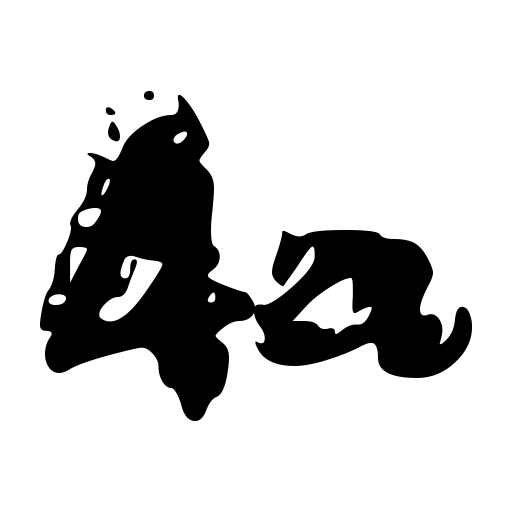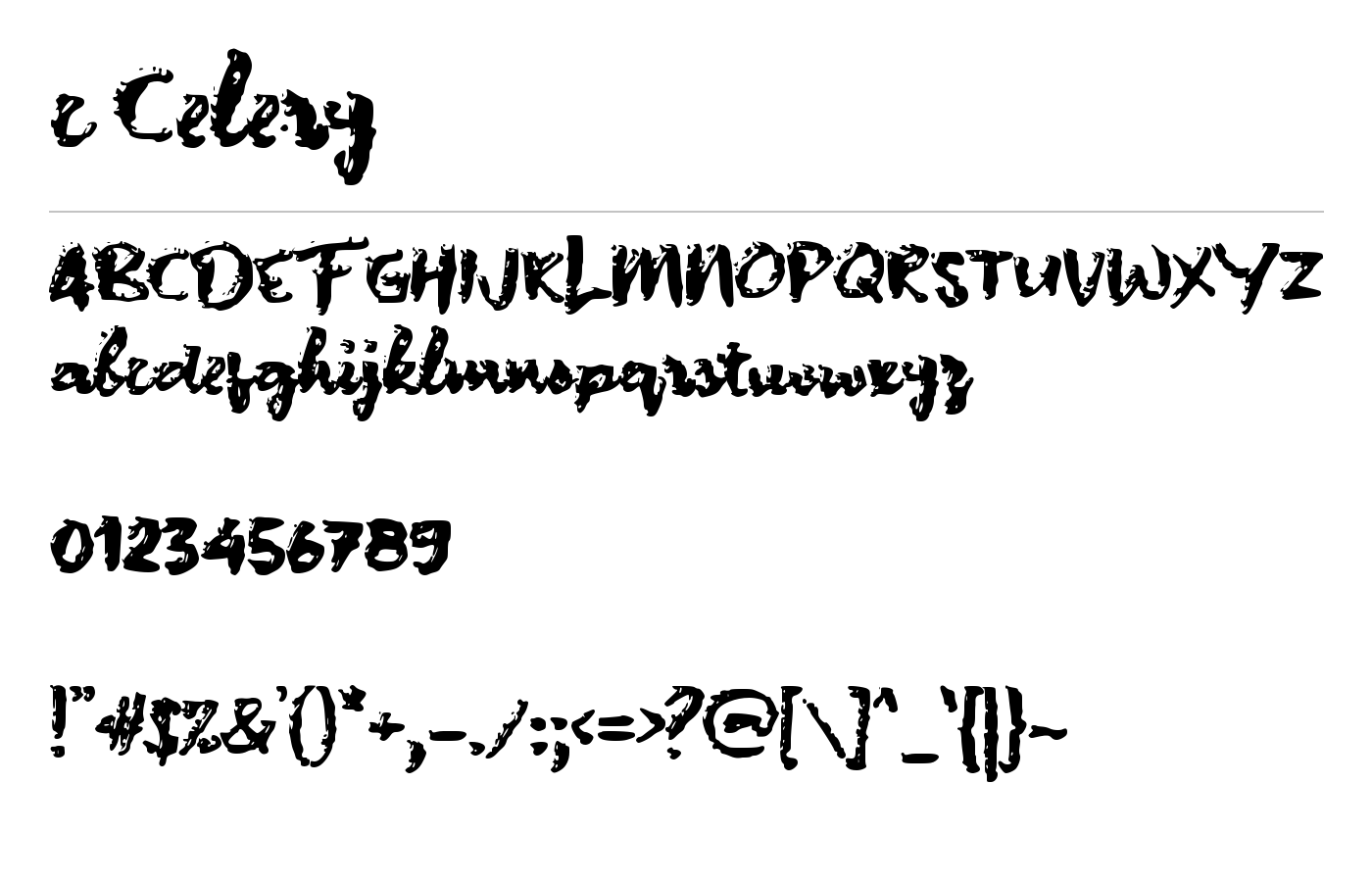
Celery Font is a bold, hand-drawn script with a rough, textured appearance that gives it a spontaneous and artistic vibe. Its uneven strokes and playful irregularities make it perfect for creative, casual, or edgy designs where a unique, expressive touch is needed. This font works well in posters, logos, or branding that aim to stand out with a handcrafted, organic feel.
c Celery Font